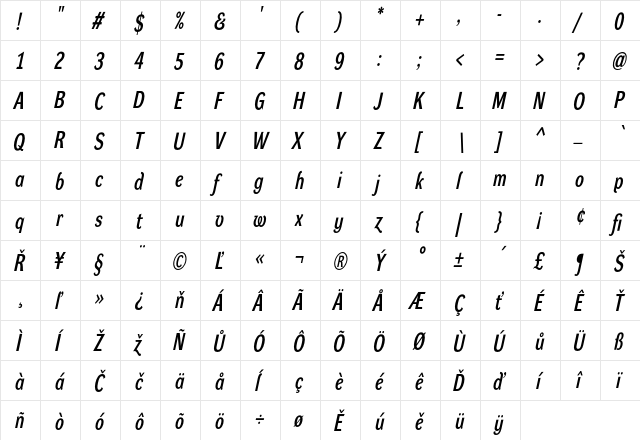
Dynamo LC Regular
Design Context for Dynamo LC Typeface
Dynamo LC is a composed and adaptable typeface that performs quietly and consistently across a wide range of design contexts.